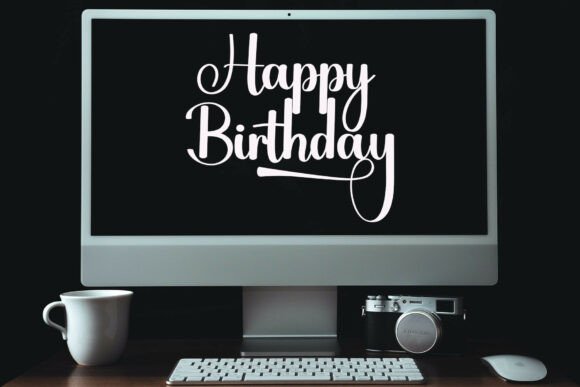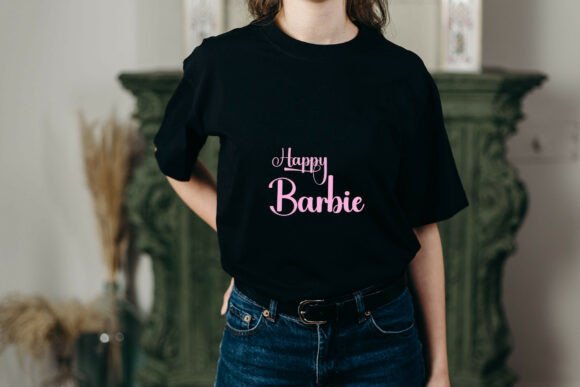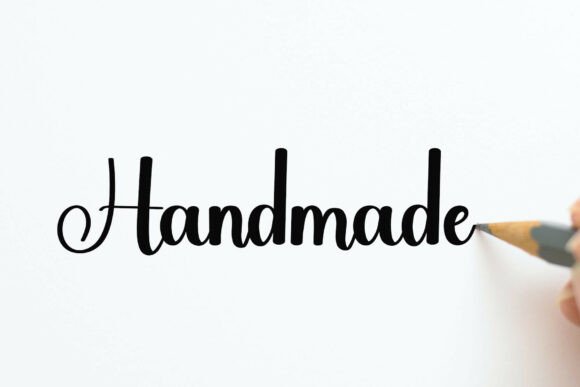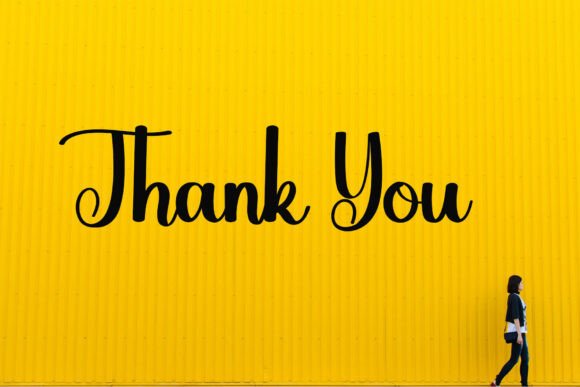
Introducing Big Baby Font: Elevate Your Designs with Timeless Elegance
In the world of typography, fonts play a crucial role in conveying the tone and personality of a design. For designers and crafters looking to add a touch of sophistication and class to their projects, Big Baby Font is an excellent choice. This trendy handwritten font boasts a contemporary atmosphere and impeccable form, inspired by timeless classic calligraphy.
The Inspiration Behind Big Baby Font
Big Baby Font draws inspiration from traditional calligraphy, bringing a sense of nostalgia and elegance to modern designs. The font’s creator aimed to craft a typeface that would seamlessly blend classic charm with contemporary flair, making it versatile enough for various design applications. The result is a font that exudes refinement and poise, perfect for projects that demand a high level of sophistication.
Key Features of Big Baby Font
- Trendy and Handwritten: Big Baby Font features a handwritten style that feels both modern and approachable. Its trendy vibe makes it suitable for designs that require a personal touch.
- Contemporary Atmosphere: Despite being inspired by classic calligraphy, Big Baby Font has a distinctly contemporary feel. This makes it an excellent choice for designers looking to create modern, yet elegant designs.
- Impeccable Form: The font’s impeccable form ensures that it remains legible and aesthetically pleasing, even at smaller sizes. This makes it versatile for use in various design projects, from logos and branding to packaging and advertising.
- Elegance and Class: Big Baby Font adds a level of sophistication to any design. Its elegant lines and classic inspiration make it perfect for projects that require a refined, high-end feel.
Uses of Big Baby Font
Big Baby Font’s versatility makes it suitable for a wide range of design projects. Here are some ways you can use this beautiful font:
- Branding and Logos: Create a lasting impression with a logo that exudes elegance and sophistication. Big Baby Font is perfect for crafting memorable brand identities.
- Packaging Design: Add a touch of class to your product packaging with Big Baby Font. Its elegant style ensures that your products stand out on store shelves.
- Advertising and Marketing: Use Big Baby Font in your advertising and marketing materials to convey a sense of refinement and luxury. This font is sure to capture the attention of your target audience.
- Stationery and Invitations: Create beautiful stationery, invitations, and greeting cards with Big Baby Font. Its classic charm makes it perfect for special occasions.
Tips for Using Big Baby Font
Big Baby Font is a versatile and elegant typeface that can elevate any design project. Its trendy handwritten style, contemporary atmosphere, and impeccable form make it perfect for designers and crafters looking to add a touch of sophistication to their work. Whether you’re creating branding materials, packaging, advertising, or stationery, Big Baby Font is an excellent choice. Experiment with this beautiful font and discover how it can transform your designs.